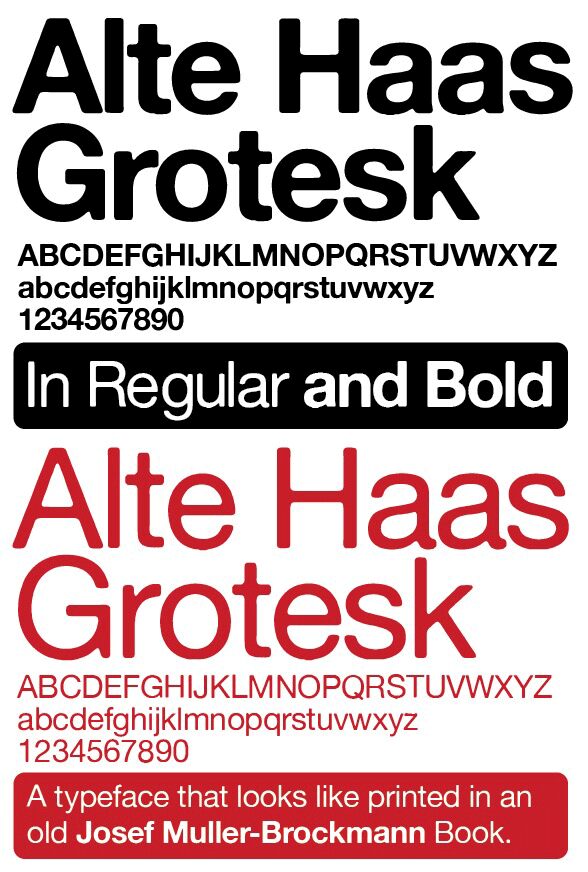
Alte Haas Grotesk Bold by Yann Le Coroller is a free bold grotesque sans serif with a compact, sturdy silhouette and softened curves. Its broad strokes, rounded joins, and close-set letters recall the direct, practical manner of mid-century commercial type.
As a visual role, it can turn a brand name into a solid shop sign or a confident packaging mark. The blunt shapes suit music and streetwear merchandise. In publishing, it is a useful choice for magazine cover lines and section openers, where its dense forms can echo blocks of photography or flat color and support a blunt, contemporary editorial voice.